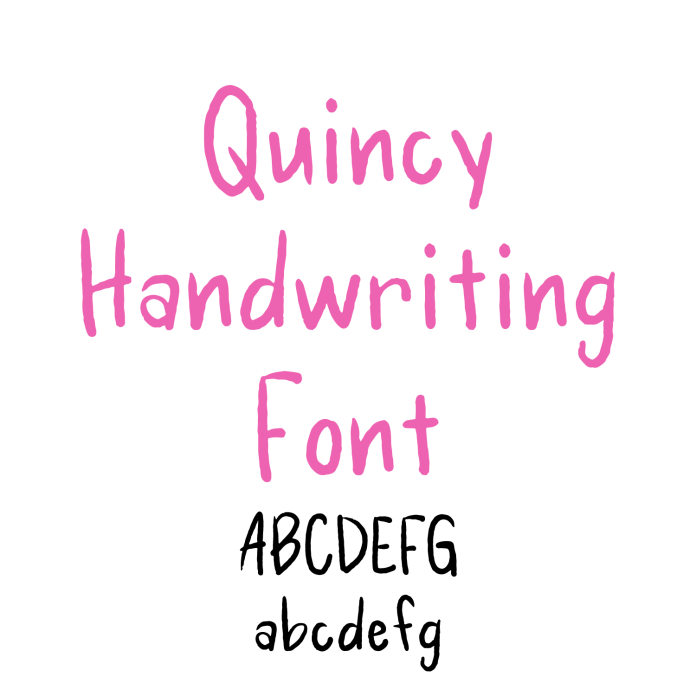
Quincy Handwriting Font, Fun Sans Serif Font
Meet Quincy Handwriting Font – a fun and friendly sans serif handwritten font perfect for all your playful and creative projects! With its smooth curves and casual style, Quincy is ideal for classroom materials, greeting cards, stickers, labels, t-shirts, quotes, and kids’ crafts. The clear, easy-to-read letters make it great for educational designs, while its charming personality adds warmth to any project. Quincy cuts beautifully on vinyl, HTV, cardstock, and printable materials, making it a favorite for crafters and teachers alike. Add a cheerful, handwritten vibe to your next creation with Quincy Handwriting Font—download now and start crafting!